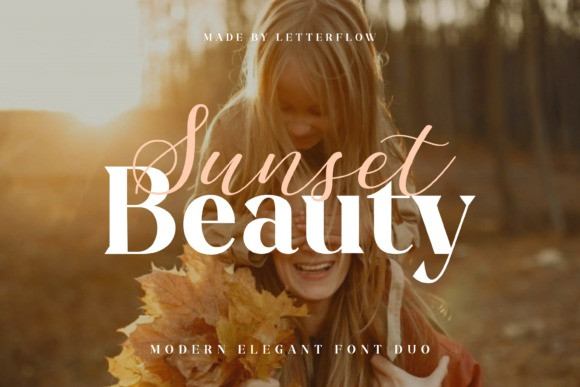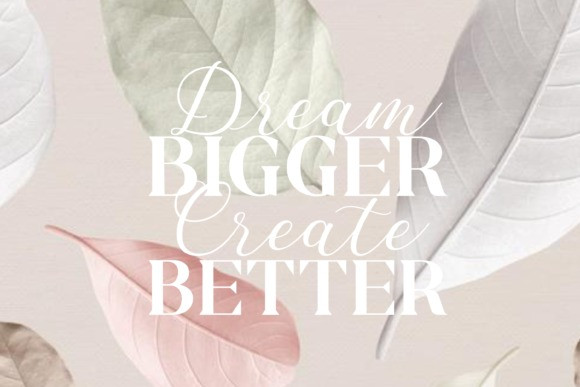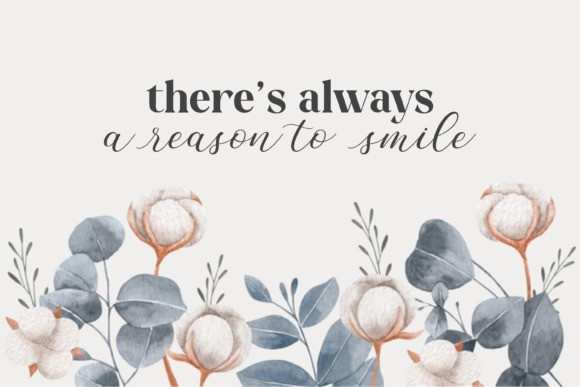
Sunset Beauty Font
Sunset Beauty is a stunning and comprehensive duo font (script and serif), ideal for giving your projects a branded but friendly feel. The two included styles can be combined together perfectly but are also beautiful on their own.